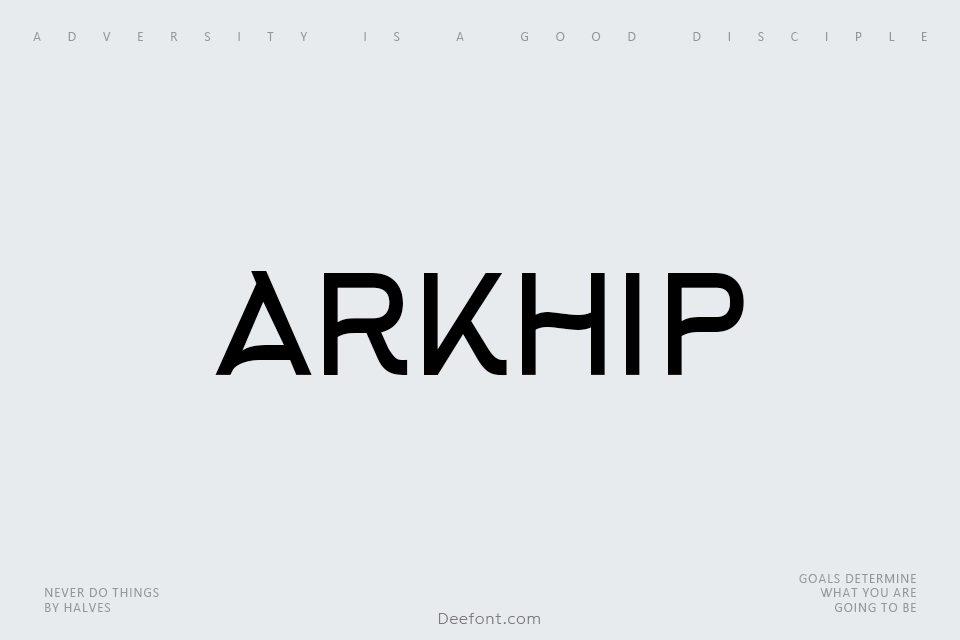
Arkhip Font
Arkhip is a striking display typeface created in 2014 by Igor Kuznetsov for Studio Design Klimov, a Russian creative digital agency. Known for its distinctive Russian character, this free font features a bold and elegant design that blends vintage and contemporary aesthetics. With 223 glyphs supporting both Latin and Cyrillic scripts across 19 languages, Arkhip delivers a powerful visual presence perfect for branding, headlines, packaging, and poster designs. Its generous aperture and flowing letterforms ensure excellent readability while maintaining sophisticated charm, making it an ideal choice for designers seeking unique typography with cultural heritage.